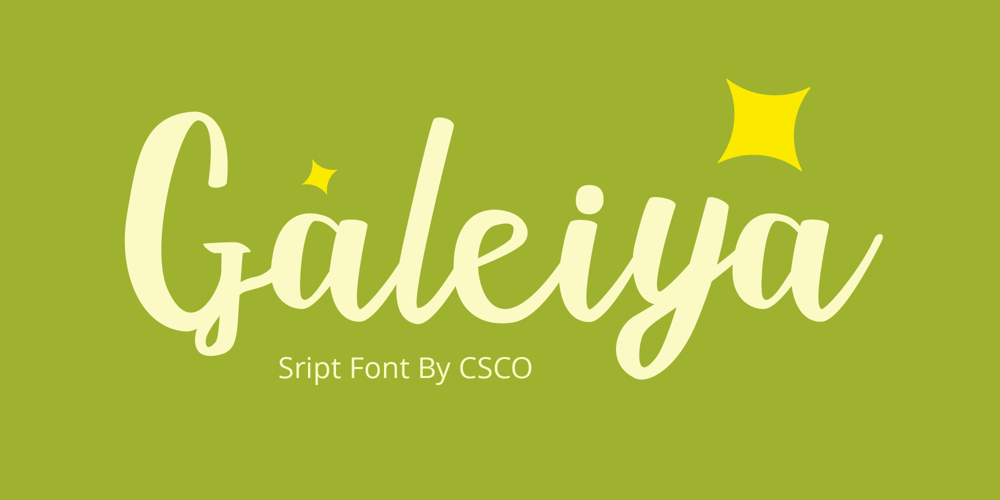
Galeiya Font Family was designed by Trio Nazzar Saputra, Wahyu Hadi Yuana and published by Craft Supply Co. Galeiya contains 1 styles and family package options. Introducing Galeiya – Cute Script FontAdorable PlayfulnessStep into the enchanting world of Galeiya – Cute Script Font, where adorable playfulness takes center stage. This font is the embodiment of girly charm and fun.Joyful WhimsyGaleiya’s joyful whimsy adds a delightful and whimsical touch to your projects, making it the perfect choice for a wide range of creative endeavors.Versatile DelightBeyond its cute appearance, this font is exceptionally versatile. It effortlessly adapts to various design contexts, from invitations to branding, infusing each project with a joyful spirit.Expressive TypographyGaleiya is more than just cute; it’s incredibly expressive. Its lovely script style injects character and a sense of fun into your content, ensuring it leaves a memorable impression.In ConclusionIn summary, Galeiya – Cute Script Font is the font that seamlessly combines girly charm with a sense of playfulness. Its versatility and expressive nature ensure your content is not only cute but also highly engaging. Whether it’s invitations, branding, or an array of creative projects, Galeiya brings a unique, expressive touch that appeals to a broad audience, leaving behind a lasting and delightful impression.